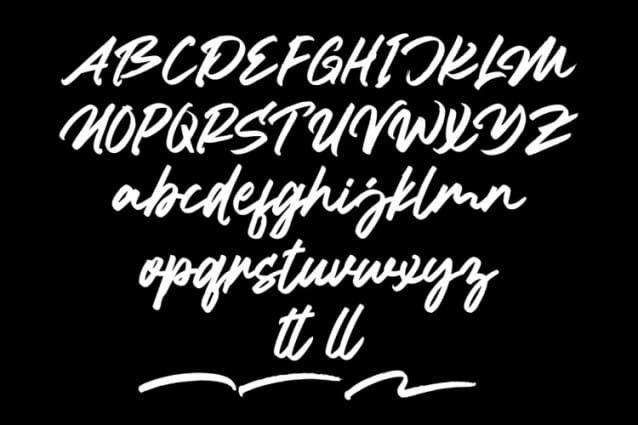
Mider Terus Font
Mider Terus Font, inspired by brush lettering-style typography. This font is perfect for a design that makes it more attractive and playful. It was made with a very good level of aesthetics, making this font suitable for a book cover, poster, packaging, merchandise, logotype, and much more.